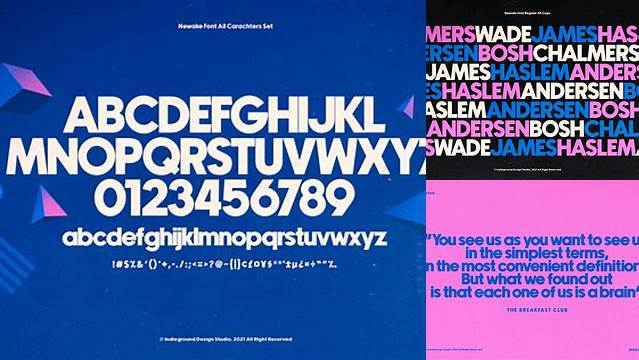
Newake Sans Serif Font: Free Download Guide
Hey guys! Ever stumbled upon a font that just clicks? That’s how I felt when I first saw the Newake sans serif font. It’s clean, modern, and incredibly versatile. Whether you're working on a sleek website design, a professional presentation, or even eye-catching social media graphics, Newake can seriously elevate your work. And the best part? You can find it for free! This article is your ultimate guide to Newake Sans Serif Font Free Download, exploring its features, uses, and where to grab it without spending a dime. So, let’s dive in and unleash the power of Newake!
What Makes Newake Sans Serif Font So Special?
Newake isn’t just another font; it's a design asset. Its beauty lies in its simplicity. The clean lines and balanced letterforms make it highly legible, whether you’re using it for headlines or body text. The Newake Sans Serif Font Free Download offers a modern and minimalist aesthetic that works wonders in various design contexts. Think about it – a font can make or break a design. A clunky, hard-to-read font can turn users away, while a sleek, legible one keeps them engaged. That's the magic of Newake. It’s designed to be both beautiful and functional, ensuring your message is delivered clearly and stylishly. The versatility of Newake also shines through its multiple weights and styles, allowing you to create a cohesive visual hierarchy in your projects. You can use the bolder weights for headings and the lighter ones for body text, maintaining a consistent look throughout. Plus, its contemporary feel makes it perfect for branding projects, websites, and marketing materials that need a touch of modern elegance. So, why settle for ordinary when you can have extraordinary? A Newake Sans Serif Font Free Download is your gateway to creating stunning visuals.
1. The Appeal of Sans Serif Fonts
Sans serif fonts, like Newake, have a distinct appeal that makes them a go-to choice for many designers. Unlike serif fonts, which have small decorative strokes at the end of each character, sans serif fonts have clean, unadorned lines. This simplicity gives them a modern and minimalist look, making them incredibly versatile for various applications. The Newake Sans Serif Font Free Download perfectly embodies this appeal, offering a contemporary aesthetic that fits seamlessly into today's design trends. Sans serif fonts are particularly effective in digital environments. Their clean lines render well on screens, ensuring readability even at smaller sizes. This makes them ideal for website body text, app interfaces, and other digital platforms where clarity is crucial. Imagine reading a long article on your phone – a cluttered, ornate font would quickly become tiring, whereas a clean sans serif font like Newake makes the experience much more pleasant. Furthermore, the modern feel of sans serif fonts lends itself well to branding projects. A clean, legible font can convey professionalism, innovation, and trustworthiness, making it an excellent choice for logos, marketing materials, and corporate communications. Think of major tech companies like Google and Apple – their logos and branding materials heavily feature sans serif fonts, reflecting their forward-thinking and user-friendly approach. With a Newake Sans Serif Font Free Download, you can harness this power and give your designs a contemporary edge. So, if you’re aiming for a modern, clean, and highly readable look, sans serif fonts like Newake are definitely the way to go.
2. Newake Font Family Overview
Let's dive deeper into what makes the Newake font family so versatile. This font isn't just a single style; it often comes with a range of weights and variations, giving you a plethora of options for your design projects. The Newake Sans Serif Font Free Download typically includes several weights, from thin and light to bold and extra-bold. This allows you to create a clear visual hierarchy in your designs, using heavier weights for headings and lighter weights for body text. Imagine designing a website – you could use Newake Bold for the main headlines, Newake Regular for the body text, and Newake Light for captions and secondary information. This consistency in font choice creates a polished and professional look. Beyond weights, Newake might also include italic versions, which add another layer of flexibility. Italic fonts are great for emphasis, quotes, or adding a touch of elegance to your text. Think about how italic text can make a quote stand out in a blog post or add a sophisticated flair to a wedding invitation. The complete Newake font family also often features different widths, such as condensed or extended versions. Condensed fonts are perfect for tight spaces where you need to fit more text, while extended fonts can create a more dramatic and eye-catching effect. With a Newake Sans Serif Font Free Download, you’re not just getting one font; you’re getting a complete toolkit for typography. This comprehensive approach makes Newake an excellent choice for projects that require a consistent and versatile typeface. So, whether you're designing a website, a brochure, or a logo, the Newake font family has got you covered.
3. Design Applications of Newake
Now, let's talk about where you can actually use Newake in your designs. This font is incredibly versatile, making it suitable for a wide range of applications. The Newake Sans Serif Font Free Download opens up a world of possibilities, from web design to print materials and beyond. For websites, Newake is a fantastic choice for both headings and body text. Its clean, legible design ensures that visitors can easily read your content, which is crucial for user experience. Think about how many websites you visit every day – the ones with clear, readable fonts are much more enjoyable to browse. In branding projects, Newake can help you create a strong, modern identity. Its minimalist aesthetic is perfect for logos, business cards, and marketing materials. Imagine a sleek, professional logo designed with Newake – it conveys a sense of sophistication and trustworthiness. Print materials like brochures, flyers, and posters also benefit from Newake's clarity and elegance. Whether you're designing a promotional flyer for an event or a corporate brochure, Newake ensures that your message is delivered effectively. Beyond these applications, Newake is also great for presentations, social media graphics, and even email newsletters. Its versatility makes it a go-to font for designers who need a reliable and stylish typeface. With a Newake Sans Serif Font Free Download, you can elevate your designs and create a polished, professional look across all your projects. So, no matter what you're working on, Newake is a font that you can count on to deliver.